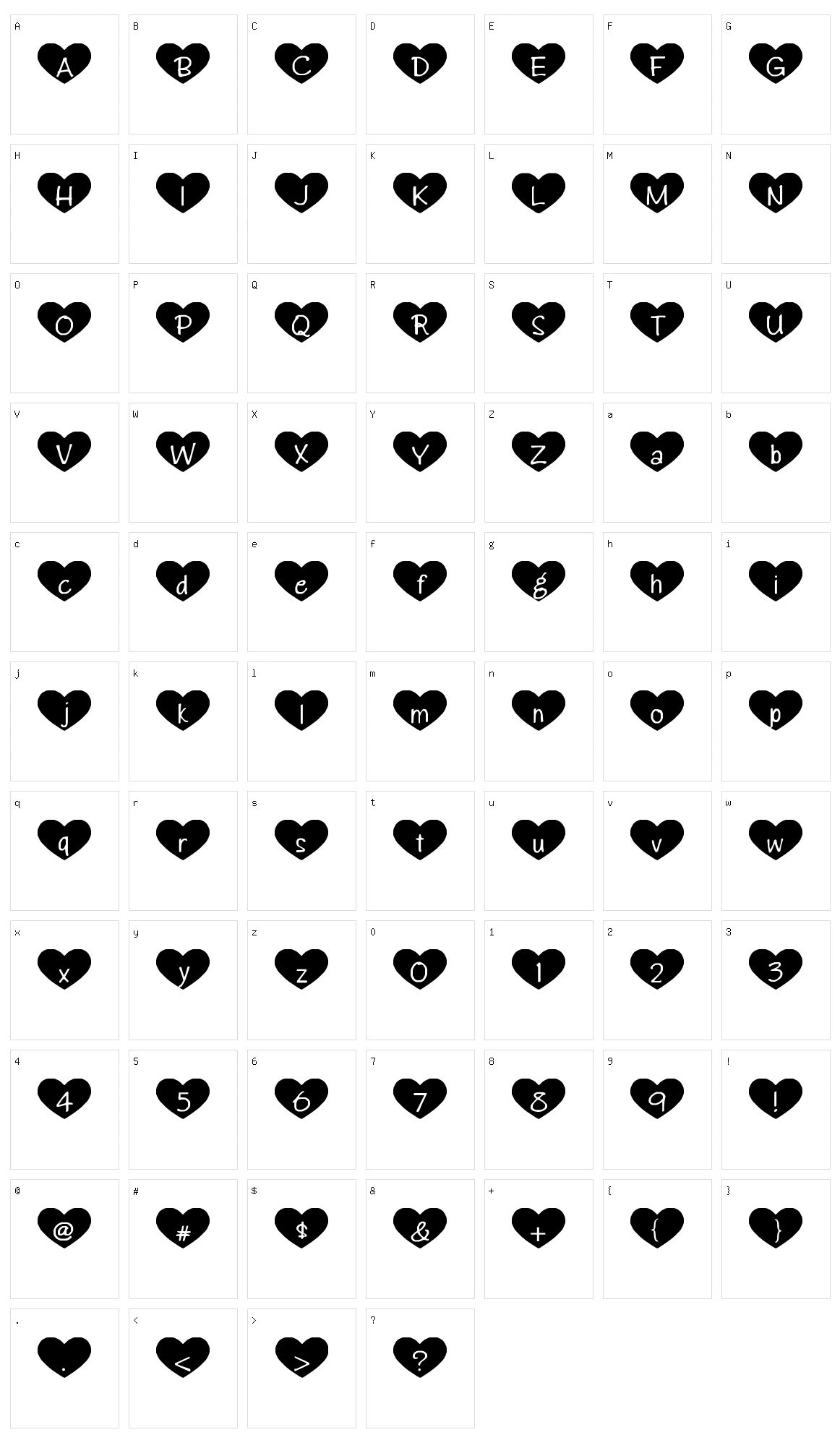
The free font Heart Attack is carefully designed by Screaming Fonts, showcasing a thoughtful balance of creativity and usability and falls under the Valentine font style. When you download the ZIP file, it contains only 13.88 KB of font files, making it lightweight and quick to download. Please review the license details below to understand permitted usage and distribution rights. If license information is not available, we recommend using this font for personal projects only or contacting the author directly for commercial usage permissions.